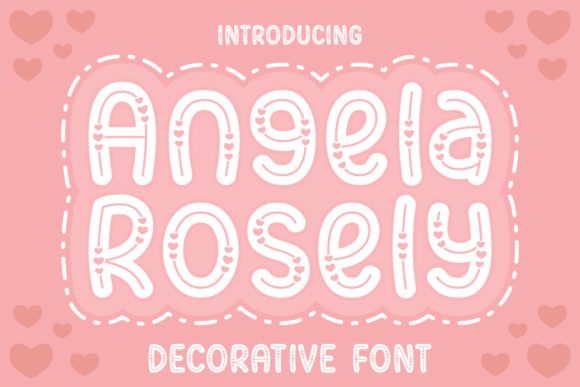
The Designer’s Delight: Angela Rosely Font
I’ll never forget the time I was working on a wedding invitation project, and my client asked for a font that was “whimsical, romantic, and playful.” I scoured the internet, tried countless fonts, but nothing seemed quite right. That was until I stumbled upon the Angela Rosely Font. It was love at first sight! 💕
This lovely decorative font has been a game-changer for my design projects, and I’m excited to share its charm with you. Angela Rosely is a chubby font featuring romantic inline character sets with little hearts, giving it a playful touch that’s perfect for a variety of creative projects.
• ✨ Unique and eye-catching design with inline character sets and little hearts
• ✅ Romantic and playful feel that’s perfect for wedding-related projects, kids’ clothing, and more
• 💕 Extensive character set, including glyphs and stylistic alternates
• 🎉 Works beautifully for branding, advertising, book covers, headlines, and poster designs
⚠️ While Angela Rosely is an amazing font, it’s essential to note that it may not be the best choice for body text or long-form content. Its decorative nature makes it more suitable for headlines, titles, and short text snippets.
🤔 Some users might find the font’s playfulness too much for certain projects, but this is largely a matter of personal taste.
The Designer Behind Angela Rosely: A Backstory
Angela Rosely was designed with love and care by a talented type designer who wanted to create a font that would bring joy and playfulness to creative projects. Inspired by the beauty of handwritten scripts and the charm of decorative fonts, Angela Rosely was born. Its unique design and extensive character set make it a versatile font that’s perfect for a wide range of applications.
Q: What type of projects is Angela Rosely best suited for?
A: Angela Rosely is perfect for branding, advertising, book covers, headlines, poster designs, wedding cards, kids’ clothing, music albums, and more.
Q: Does Angela Rosely support OpenType features?
A: Yes, Angela Rosely features an extensive character set, including glyphs and stylistic alternates, making it a great choice for designers who want to add more depth and personality to their text.
Q: Can I use Angela Rosely for body text or long-form content?
A: While Angela Rosely is an amazing font, it’s not the best choice for body text or long-form content. Its decorative nature makes it more suitable for headlines, titles, and short text snippets.